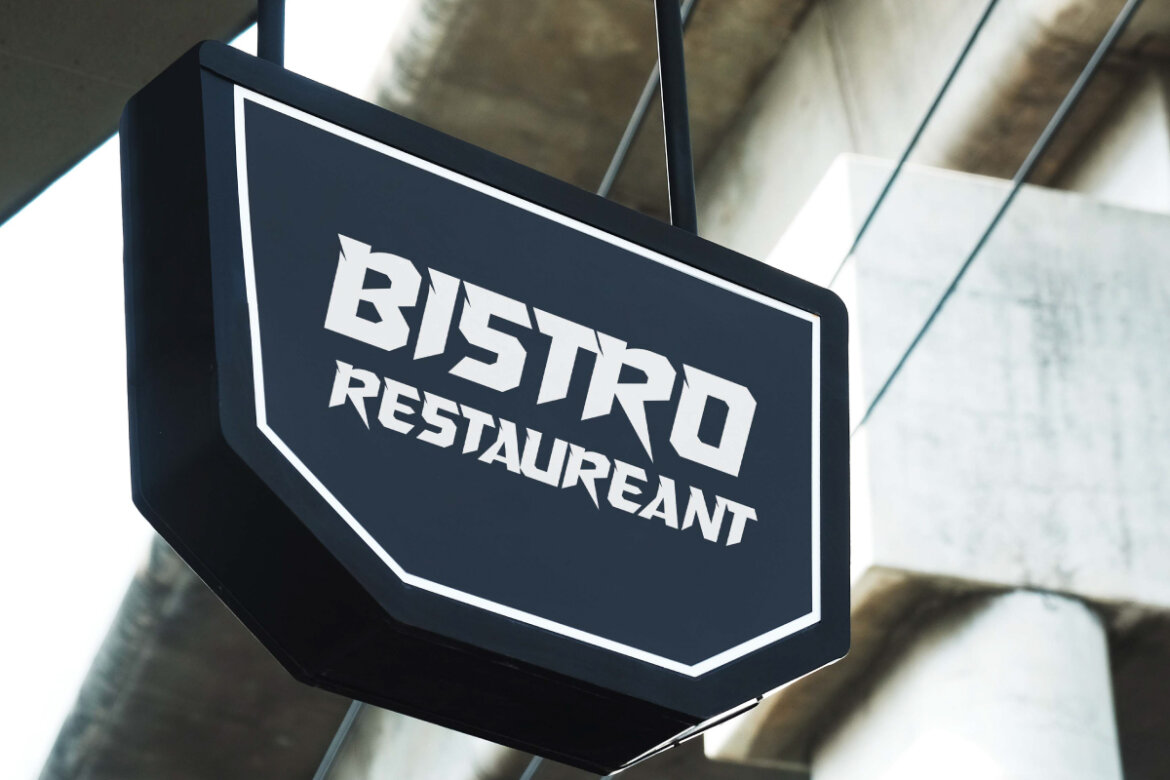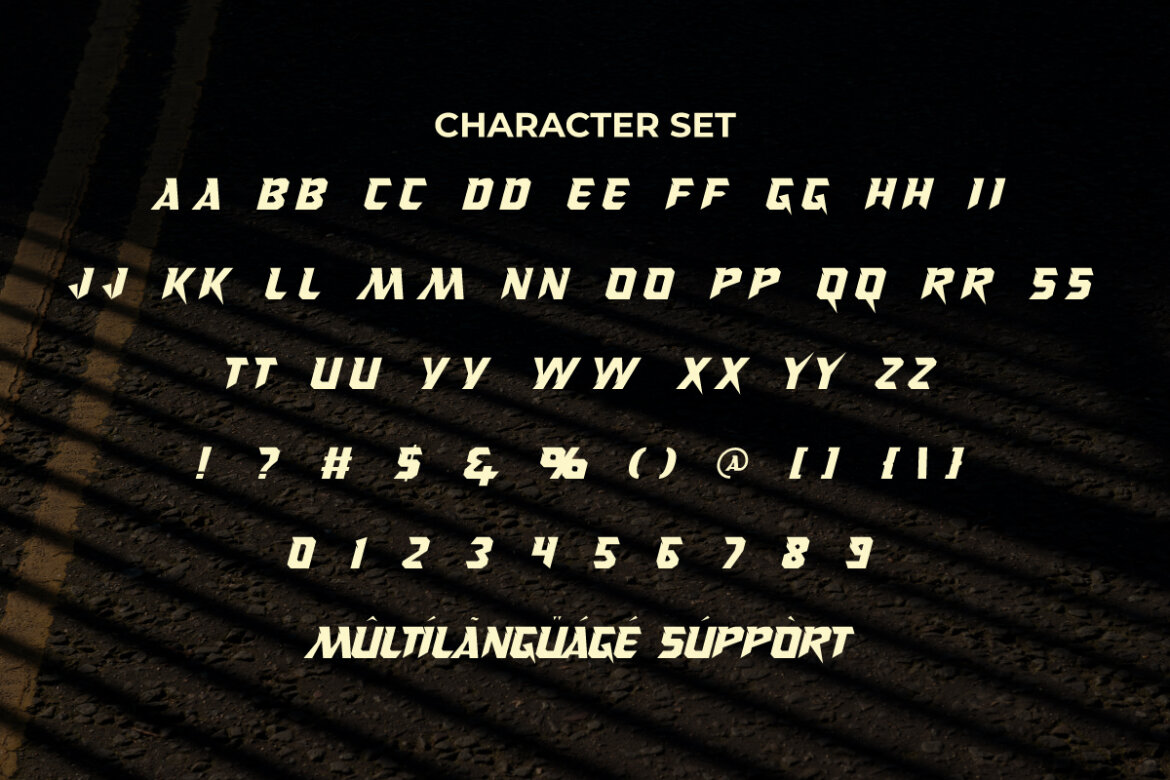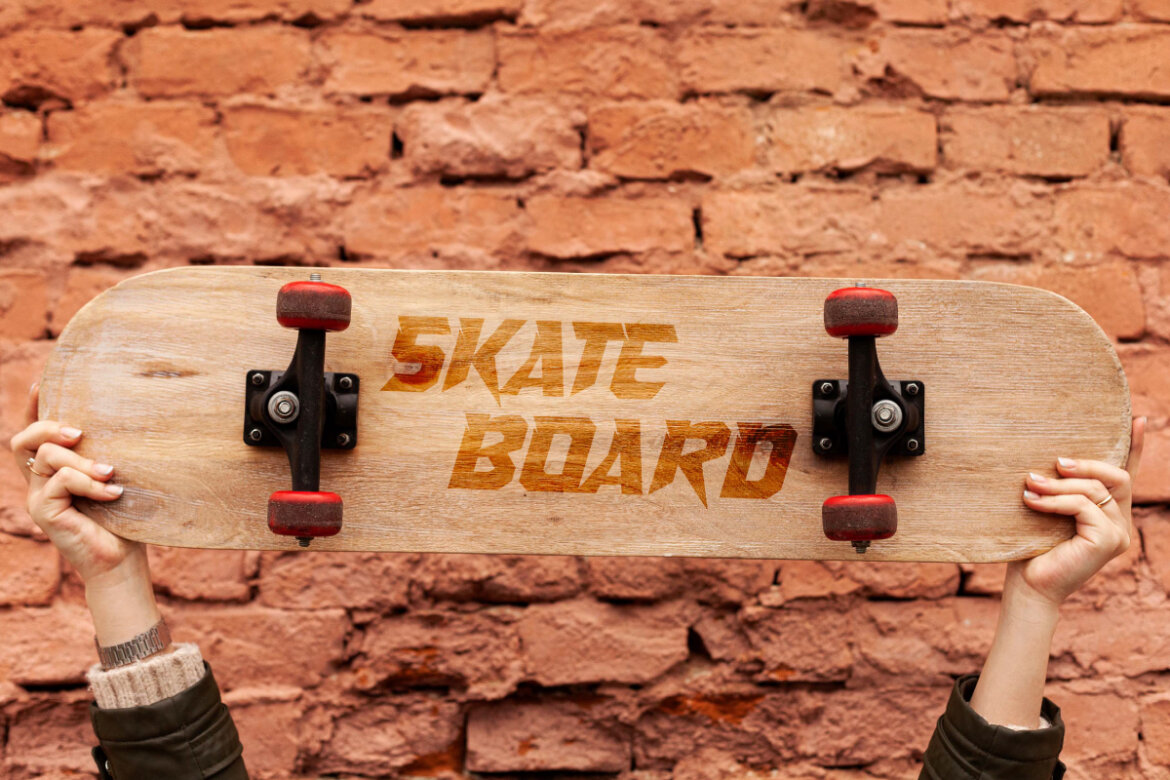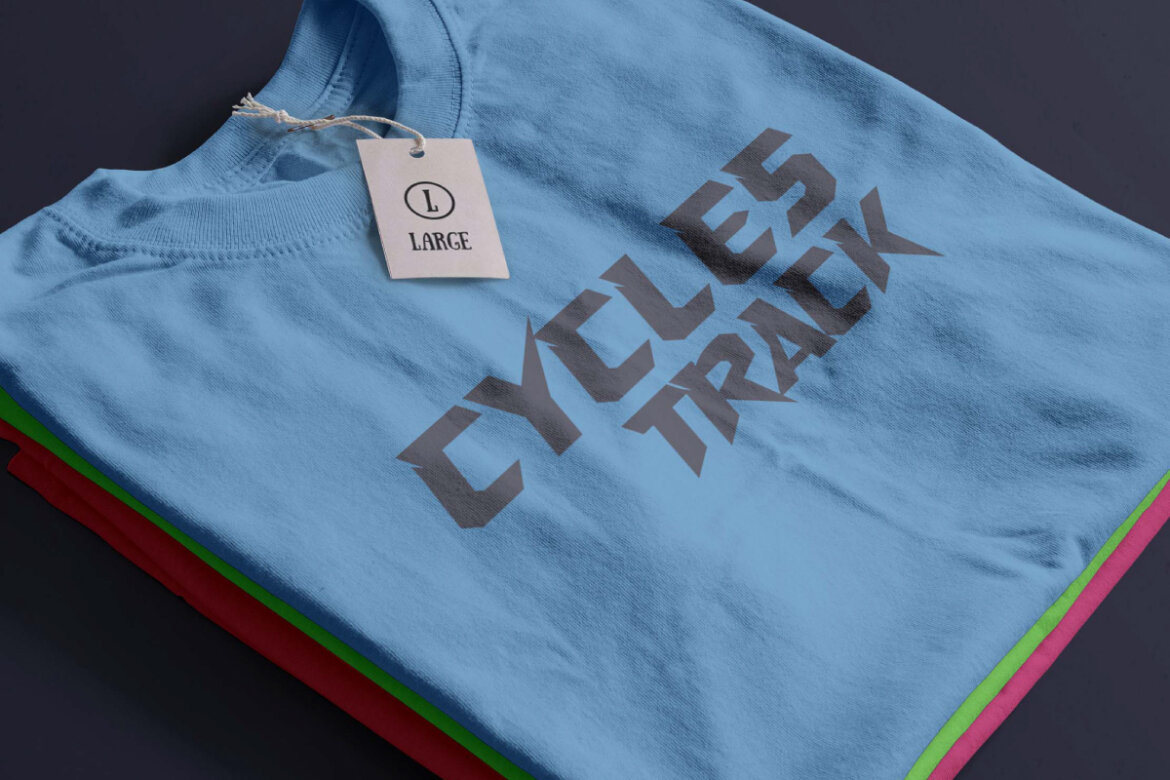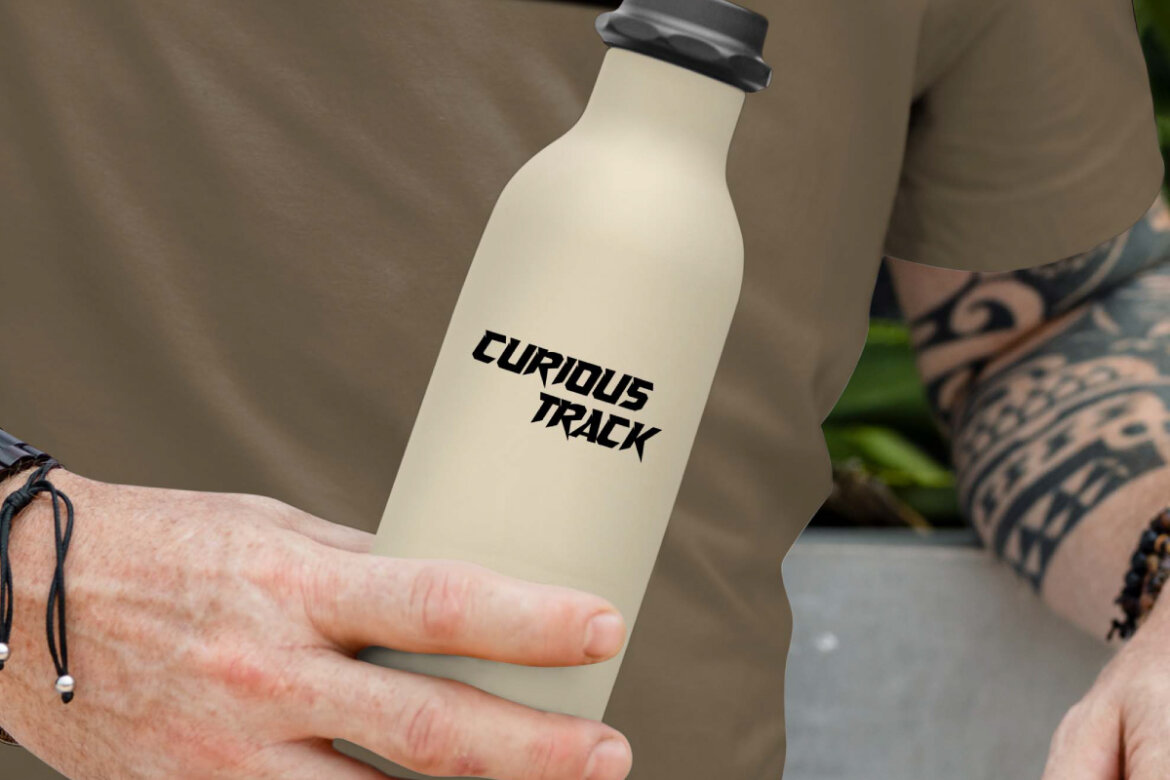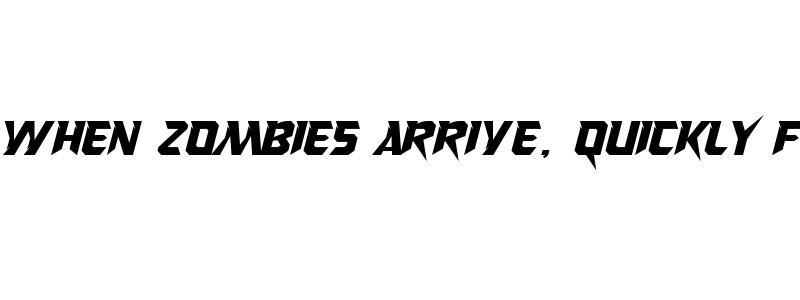
Curious Track Font is a fast and powerful racing font with a modern and sporty style. This futuristic font that features a racing style with measured sharpness and slant will therefore be good for billboard, blogs, brand label, brochure, cover, flyer, headers, logos, packaging design, posters, signs, stickers, t-shirt screen print, especially for the sports branding but is also great for other projects.
Curious Track Font comes with a full set of ALL CAPS for Uppercase and Lowercase letters, Number, Punctuation, and Symbol. Introducing a large and impressive display font design inspired by sports. Created to be dynamic in supporting and accentuating your business identity, such as ads, automotive, clothing brand, content creator, energy drink brands, fashion, film, game, graphic design, gym or fitness center, handicraft, jersey maker, menswear, merchandise, printing, publishing, racetrack, restaurant, sells outdoor activity equipment, sportswear, sports match, vehicle accessories, web designer, etc.
Curious Track Font also supports multilingual characters which are ready to use either on Windows or Mac machines with a simple installation. Combine different characters for a bespoke, handcrafted feel. It’s tested to work well in the Adobe Apps (Illustrator, Adobe InDesign, Adobe Photoshop) even work on Microsoft Word. All of these characters are available through the glyph panel, moreover each letter has its own unicode (PUA) so you can access all the characters easily.